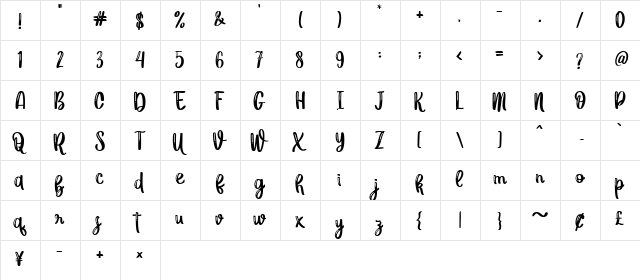
la fiesta Regular
| Foundry | Hans Co |
| Designer | Burhan Afif |
Design Context for la fiesta Typeface
la fiesta is a composed and adaptable typeface that performs quietly and consistently across a wide range of design contexts.